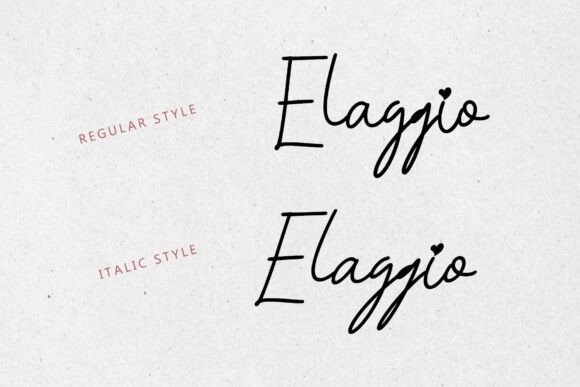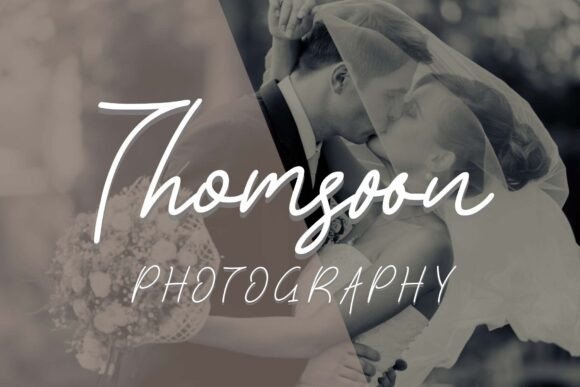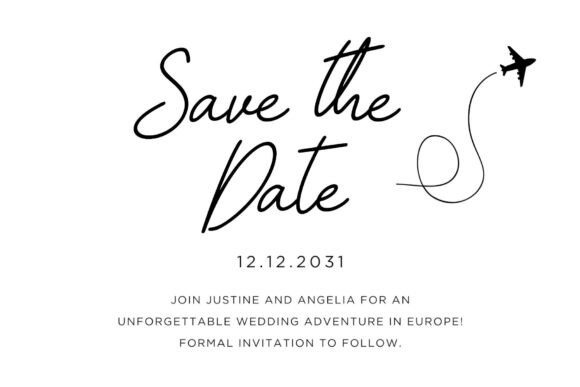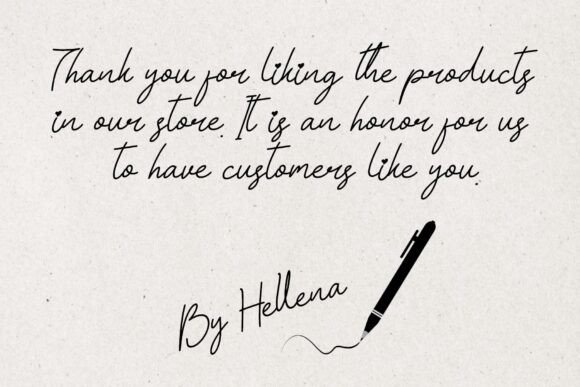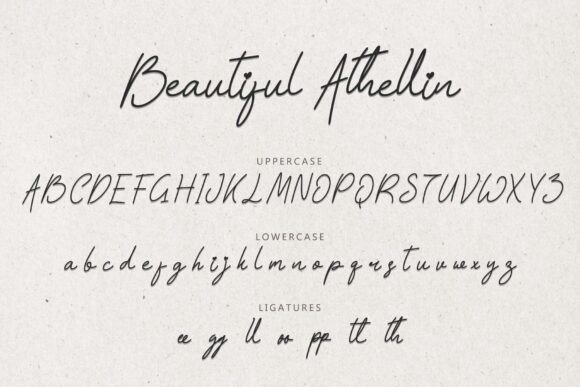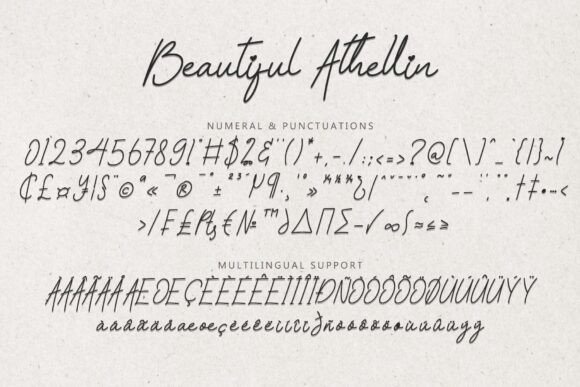
Have you ever been browsing through a beautifully designed wedding invitation or a romantic photograph, and suddenly, you’re captivated by the elegant script used in the typography? That’s exactly what happens when you come across the “Beautiful Athellin Font”. This stunning handwritten monoline font is designed to bring a touch of sophistication and charm to your next creative project.
As a designer, you understand the importance of choosing the right font to convey the emotions and tone of your message. The Beautiful Athellin Font is perfect for creating invitations, certificates, and other documents that require a personal and elegant touch. With its extensive character set, including ligatures, numbers, and punctuation, this font is a valuable addition to any designer’s toolkit.
Beautiful Athellin Font Key Features
- Size: The font family includes 6 weights, ranging from Thin (100) to Black (900), providing versatility for various design applications.
- Unique Characteristics: The font features a unique blend of modern and classic elements, with elegant curves and geometric shapes, making it ideal for use in luxury branding, fashion, and high-end design projects.
- Language Support: Beautiful Athellin Font includes comprehensive language support, covering Latin, Cyrillic, and Greek alphabets, as well as support for various diacritical marks and special characters.
- Kerning and Glyphs: The font features advanced kerning and a wide range of glyphs, ensuring optimal readability and aesthetic appeal in various text settings.
Beautiful Athellin Font Review
Overall, I think the Beautiful Athellin Font has some great qualities that make it suitable for certain projects, but it also has some limitations that might not make it the best choice for everyone.
- Unique aesthetic: The font has a distinctive, elegant feel that can add a touch of sophistication to any design.
- Good legibility: At larger font sizes, the font is easy to read and understand.
- Support for various languages: The font includes a wide range of languages, making it a good choice for projects that require multilingual support.
- Limited font sizes: At smaller font sizes, the font can become difficult to read and may appear blurry.
- Lack of bold and italic styles: The font only comes in a regular weight, which can limit its versatility.
- May not be suitable for body text: Due to its elegant feel, the font may not be the best choice for large blocks of body text.
Overall, I think the Beautiful Athellin Font is a great choice for projects that require a touch of elegance and sophistication, such as logos, headings, and other design elements where legibility is not a major concern. However, it may not be the best choice for projects that require a lot of body text or need a more versatile font.
To get the most out of the Beautiful Athellin Font, try the following:
Use it for headings and titles to add a touch of elegance to your design.
Combine it with other fonts to create a unique and sophisticated look.
The Beautiful Athellin Font is perfect for:
Business cards and marketing materials
Editorials and literary publications
Alternatives to Beautiful Athellin Font
The Beautiful Athellin Font is a stylish, elegant, and sophisticated font. However, it may not be suitable for every project or design style. Here are a few alternatives that designers can consider:
Carolyna Pro is a modern, elegant, and sophisticated font that is perfect for luxury brands, high-end fashion, and fine art. It has a similar feel to Beautiful Athellin Font, but with a more refined and polished look. Use Carolyna Pro when you need a font that exudes sophistication and elegance.
Great Vibes is a beautiful, elegant, and cursive font that is perfect for creative projects, wedding invitations, and fine art. It has a more playful and whimsical feel compared to Beautiful Athellin Font, but still retains a level of sophistication. Use Great Vibes when you need a font that adds a touch of elegance and whimsy to your design.
What font sizes and styles are included in the Beautiful Athellin font family?
The Beautiful Athellin font family includes multiple font sizes and styles, including regular, bold, italic, and bold italic. The font sizes range from 8pt to 72pt, providing a wide range of options for your design projects. Please refer to the font’s documentation or specification sheet for a detailed list of included font sizes and styles.